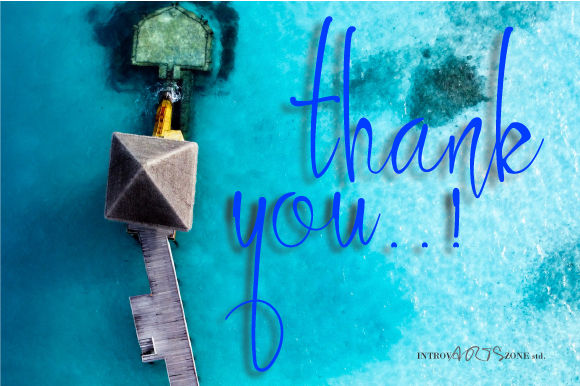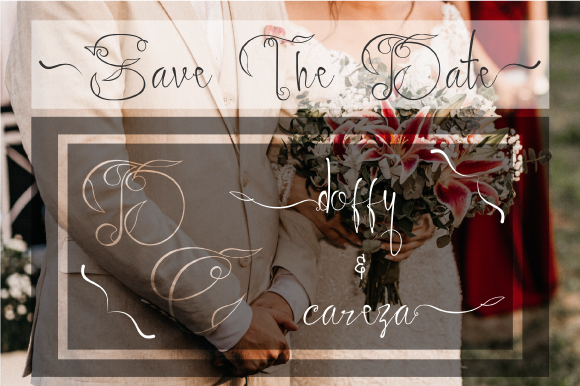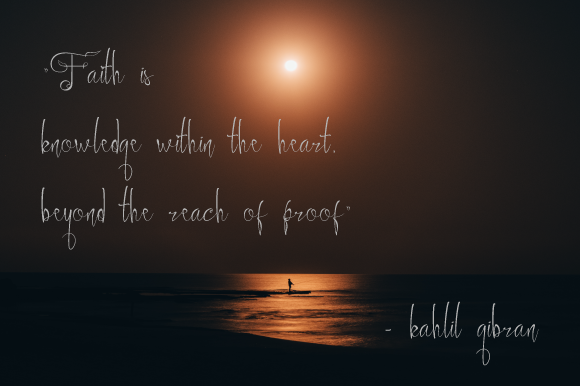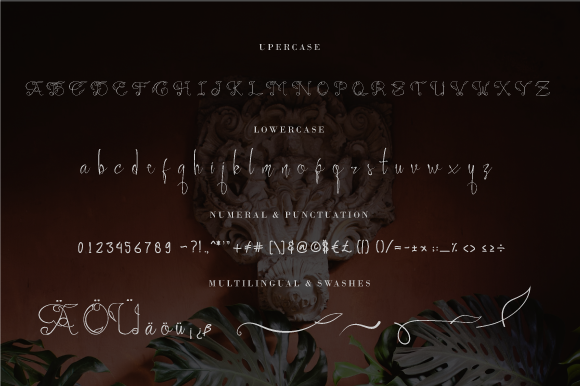
Ayuningtyas Font: Elevate Your Designs with Elegance and Versatility
Are you tired of using the same old fonts in your designs? Look no further than Ayuningtyas, a stunning and gorgeous script font that will turn any design idea into a true standout. With its versatile and elegant style, Ayuningtyas is the perfect addition to any designer’s toolkit.
What is Ayuningtyas Font?
Ayuningtyas is a beautifully crafted script font that exudes elegance and sophistication. Its unique and flowing design makes it perfect for a wide range of design applications, from branding and advertising to packaging and digital media. Whether you’re a professional designer or a crafty DIY enthusiast, Ayuningtyas is sure to inspire your creativity and take your designs to the next level.
Key Features of Ayuningtyas Font
- Versatile Style: Ayuningtyas boasts a versatile style that can be used in a variety of design contexts, from formal and elegant to playful and whimsical.
- Elegant Script: The font features a beautiful, flowing script design that adds a touch of sophistication to any design.
- Highly Readable: Despite its elegant and cursive nature, Ayuningtyas remains highly readable, making it perfect for body text and headlines.
- Multilingual Support: Ayuningtyas supports a wide range of languages, making it a great choice for designers working on international projects.
Uses of Ayuningtyas Font
Ayuningtyas is an incredibly versatile font that can be used in a wide range of design applications, including:
- Branding and Logo Design: Create stunning logos and brand identities with Ayuningtyas’ elegant and sophisticated script.
- Advertising and Marketing: Use Ayuningtyas to create eye-catching ads, flyers, and brochures that grab attention and leave a lasting impression.
- Packaging Design: Add a touch of elegance to your product packaging with Ayuningtyas’ beautiful script font.
- Digital Media: Use Ayuningtyas in your digital designs, such as social media graphics, website headers, and email newsletters.
Tips for Using Ayuningtyas Font
To get the most out of Ayuningtyas, here are a few tips to keep in mind:
- Pair with a Sans Serif Font: Pair Ayuningtyas with a clean and simple sans serif font to create a beautiful contrast and add visual interest to your design.
- Experiment with Colors: Ayuningtyas looks great in a variety of colors, so don’t be afraid to experiment and find the perfect hue for your design.
- Use for Headlines and Titles: Ayuningtyas is perfect for headlines and titles, so use it to add a touch of elegance and sophistication to your design.
In conclusion, Ayuningtyas is a stunning and gorgeous script font that is sure to elevate your designs and take them to the next level. With its versatile and elegant style, Ayuningtyas is the perfect addition to any designer’s toolkit. Whether you’re a professional designer or a crafty DIY enthusiast, Ayuningtyas is sure to inspire your creativity and help you create beautiful and effective designs.